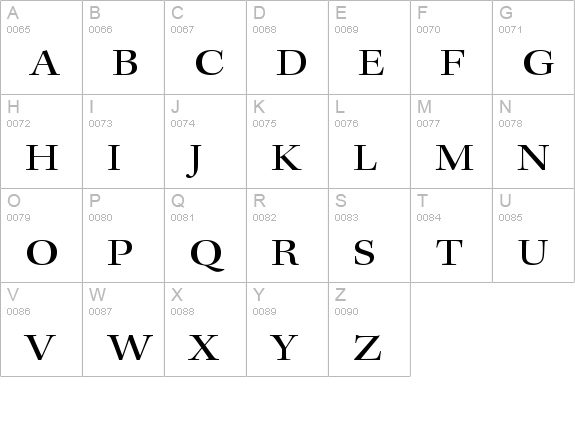
Kepler Std Medium Extended Subhead Font Details
Kepler Std Medium Extended Subhead is a balanced, medium-weight, extended-width variant in the Kepler typeface family \xE2\x80\x94 well suited to sub-headlines, navigation, and balanced editorial work.
Kepler Std Medium Extended Subhead font is a modern and versatile typeface that adds a touch of sophistication to any design project. With its clean lines and balanced proportions, this font is perfect for creating eye-catching headlines, subheadings, and captions. The Medium Extended Subhead variant of Kepler Std offers a slightly wider character width, making it ideal for designs that require more emphasis and impact. Its medium weight strikes the perfect balance between being bold and readable, making it suitable for both print and digital applications. One of the best features of Kepler Std Medium Extended Subhead font is that it is available for free download at FontsMarket.com. This means that designers and enthusiasts alike can easily access this high-quality font without any cost. Whether you're a professional graphic designer or a hobbyist, this font is a valuable addition to your collection. The versatility of Kepler Std Medium Extended Subhead font allows it to be used in various design contexts, from editorial layouts to branding projects and everything in between. Its legibility ensures that your message is effectively communicated, while its modern aesthetic adds a stylish touch to your designs. Overall, Kepler Std Medium Extended Subhead font is an excellent choice for those seeking a contemporary typeface that combines elegance and functionality. Its availability as a free download at FontsMarket.com makes it even more accessible and appealing to designers of all levels. So go ahead and enhance your designs with this beautiful font today!